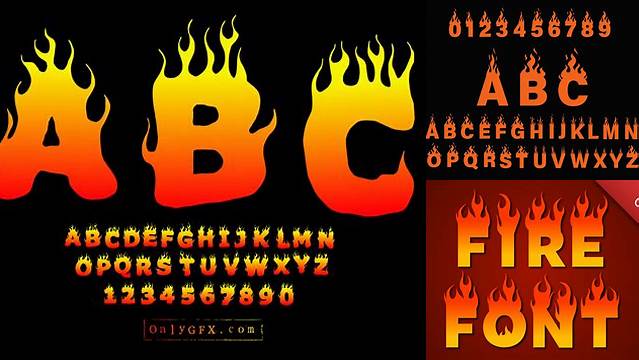
Free Alphabet Fire Font Download: Ignite Your Designs
Hey guys! Ever wanted to add a blazing touch to your designs? Imagine text that looks like it's literally on fire – that's the magic of alphabet fire fonts. In this comprehensive guide, we'll explore the fascinating world of these fiery fonts, where you can find them for free download, and how to use them to make your projects stand out. From scorching logos to sizzling social media graphics, alphabet fire fonts can add a dramatic and unforgettable flair. Fire fonts are more than just visually striking; they evoke a sense of power, energy, and passion. Using these fonts can instantly grab attention and make your message unforgettable. Whether you're designing a poster for a rock concert, a logo for a gaming clan, or just want to spice up your personal projects, fire fonts offer a unique way to express creativity and make a statement. But where do you even begin to find these fiery gems? The internet is vast, and sifting through countless websites can be overwhelming. Fear not! We've scoured the web to bring you a curated list of resources where you can download alphabet fire fonts for free. We'll also guide you on how to choose the right font for your project, considering factors like readability, style, and overall impact. So, buckle up and get ready to ignite your designs with the perfect alphabet fire font. Let's dive in and explore the hottest typography trends that will set your projects ablaze.
Why Choose an Alphabet Fire Font?
So, why should you even consider using an alphabet fire font? What's the big deal, right? Well, let me tell you, these fonts are absolute game-changers when it comes to grabbing attention and making a bold statement. Alphabet fire fonts are not just about looking cool; they're about conveying a specific mood and message. The imagery of fire is universally associated with passion, energy, and intensity. By incorporating a fire font into your design, you're instantly tapping into these emotions and creating a visceral connection with your audience. Think about it – fire is dramatic, it's captivating, and it demands attention. This makes fire fonts perfect for projects where you want to make a lasting impression. For example, if you're designing a logo for a high-energy sports team or a brand that embodies innovation and excitement, a fire font can be an excellent choice. Similarly, if you're creating promotional materials for a music event or a product launch, a fire font can help you generate buzz and excitement. The versatility of alphabet fire fonts also makes them a valuable asset for a wide range of design projects. Whether you're working on a digital banner, a print advertisement, or even a video title sequence, a fire font can add a dynamic and eye-catching element. The key is to use them strategically and in a way that complements your overall design aesthetic. In addition to their visual appeal, alphabet fire fonts can also add a unique personality to your work. They can help you stand out from the crowd and create a distinct brand identity. In a world where visual content is king, using a fire font can be a powerful way to make your message heard and remembered. So, if you're looking for a font that's both stylish and impactful, an alphabet fire font might be just what you need to set your designs on fire.
Where to Find Free Alphabet Fire Fonts
Alright, guys, let's get to the good stuff – where can you actually find these awesome alphabet fire fonts without breaking the bank? The internet is a treasure trove of free resources, but it can also be a bit of a maze. Don't worry, I've got your back! I've scoured the web and compiled a list of some of the best places to download alphabet fire fonts for free. First up, we have websites like DaFont and FontSpace. These are like the granddaddies of free font websites, and they have a massive selection of fonts, including some seriously cool fire fonts. Just type "fire font" into the search bar, and you'll be presented with a plethora of options. You can even filter your search by license type to make sure you're only downloading fonts that are free for commercial use. Another great resource is Creative Fabrica. While they do offer premium fonts, they also have a section for freebies that's updated regularly. Keep an eye out, and you might just snag a fantastic fire font without spending a dime. Don't forget to check out MyFonts and Fonts.com as well. Although they're primarily known for their premium fonts, they often have free font collections or promotions where you can download high-quality fonts for free. It's always worth a look! When downloading fonts from these websites, it's crucial to pay attention to the license agreement. Some fonts are free for personal use only, while others can be used for commercial projects. Make sure you understand the terms before you start using the font in your designs. Another handy tip is to use font preview tools. Most of these websites offer a way to preview the font before you download it, so you can see how it will look with your text. This can save you a lot of time and effort in the long run. So, there you have it – a few excellent resources for finding free alphabet fire fonts. Get out there and start exploring! With a little bit of searching, you're sure to find the perfect font to ignite your creativity.
Top Alphabet Fire Fonts to Download
Okay, so now you know where to find these fiery fonts, but with so many options out there, how do you choose the right one? Let's dive into some top alphabet fire fonts that you can download today and start using in your projects. One popular choice is "Hot Lava", a bold and dramatic font that looks like it's literally melting off the page. This font is perfect for headlines, posters, and anything that needs a serious dose of fiery energy. If you're looking for something a bit more stylized, check out "Inferno". This font features sharp, jagged edges that mimic the look of flames, making it ideal for logos, gaming graphics, and anything with a dark and edgy vibe. For a more classic fire font look, "Blaze" is an excellent option. This font has a clean and legible design with subtle flame-like details, making it versatile enough for a wide range of projects. If you're working on a project with a vintage or retro feel, "Ember" might be the perfect choice. This font has a slightly distressed texture and a classic sans-serif design, giving it a timeless and fiery look. Another standout font is "Magma", which features thick, bold strokes and a molten appearance. This font is sure to make a statement and is perfect for headlines, titles, and anything that needs to grab attention. When choosing a fire font, it's important to consider the overall style and tone of your project. Do you want something bold and dramatic, or something more subtle and stylized? Think about the message you're trying to convey and choose a font that aligns with that message. It's also a good idea to experiment with different fonts and see how they look in your designs. Try using different font sizes, colors, and effects to create the perfect fiery look. With a little bit of experimentation, you're sure to find the perfect alphabet fire font to set your designs ablaze.
How to Use Alphabet Fire Fonts in Your Designs
Alright, you've got your hands on some awesome alphabet fire fonts – now what? How do you actually use them in your designs to create that wow factor? Let's talk about some tips and tricks for using these fonts effectively. First and foremost, remember the golden rule of typography: less is more. Fire fonts are inherently dramatic and eye-catching, so you don't want to overdo it. Using a fire font for every single element in your design can quickly become overwhelming and make your message less impactful. Instead, use fire fonts strategically for key elements like headlines, titles, and logos. Pair them with simpler, more legible fonts for body text and other supporting elements. This will create a visual hierarchy and ensure that your message is clear and easy to read. Another important consideration is color. Fire fonts typically look best when paired with colors that complement the imagery of fire, such as reds, oranges, yellows, and blacks. Experiment with different color combinations to see what works best for your design. You can also use gradients and other effects to enhance the fiery look of the font. For example, adding a subtle glow or shadow can make the font appear as if it's actually emitting light. When using fire fonts in digital designs, consider the loading time and file size. Some fire fonts can be quite complex, which can slow down your website or app. Optimize your fonts for web use to ensure a smooth user experience. In print designs, make sure your fire font is legible at the intended size. Some fonts may look great on a computer screen but become difficult to read when printed. Always do a test print to check the legibility of your fonts. Finally, don't be afraid to experiment! Try using different fire fonts in combination with other fonts, colors, and effects to create unique and eye-catching designs. With a little bit of creativity, you can use alphabet fire fonts to add a touch of fiery flair to any project.
Tips for Choosing the Right Fire Font
Choosing the right fire font can feel like a daunting task, especially with so many options available. But fear not, my friends! I'm here to give you some tips for selecting the perfect fiery font for your project. First, consider the overall style and tone of your design. What kind of message are you trying to convey? Are you going for a bold and dramatic look, or something more subtle and stylized? The font you choose should align with the overall aesthetic of your project. If you're designing a logo for a rock band, a bold and aggressive fire font might be perfect. But if you're creating a poster for a more sophisticated event, a more elegant and refined fire font might be a better choice. Another important factor to consider is readability. While fire fonts are visually striking, some can be difficult to read, especially at smaller sizes. Make sure the font you choose is legible enough for your intended use. If you're using a fire font for body text, opt for a font with a clean and simple design. For headlines and titles, you can get away with a more decorative font, but still make sure it's easy to read at a glance. Think about the context in which the font will be used. Will it be used on a website, in print, or in a video? Different media may require different types of fonts. For example, fonts used on websites should be optimized for web use to ensure they load quickly and display correctly. In print, you'll need to consider the resolution and print quality. Don't forget about font pairing. Fire fonts are often best used in combination with other fonts. Choose a secondary font that complements the fire font and provides a visual contrast. A simple sans-serif font often works well as a secondary font for a more decorative fire font. Finally, experiment! Try out different fire fonts and see how they look in your designs. Play around with different sizes, colors, and effects to create the perfect look. The best way to find the right fire font is to simply try out different options and see what works best for your project. With these tips in mind, you'll be well on your way to choosing the perfect alphabet fire font to ignite your creativity and set your designs ablaze!
So, there you have it, guys! A comprehensive guide to the fiery world of alphabet fire fonts. We've explored why these fonts are so impactful, where to find them for free, some top font recommendations, how to use them effectively in your designs, and tips for choosing the right one. Alphabet fire fonts are a powerful tool for any designer looking to add a touch of drama, energy, and excitement to their work. Whether you're designing a logo, a poster, a website, or anything in between, these fonts can help you make a bold statement and grab your audience's attention. Remember, the key to using fire fonts effectively is to use them strategically. Don't overdo it, and always consider the overall style and tone of your project. Pair them with complementary fonts and colors, and don't be afraid to experiment with different effects. With a little bit of creativity, you can use alphabet fire fonts to create designs that are truly unforgettable. So go ahead, ignite your creativity and start experimenting with these fiery fonts today! The possibilities are endless, and the results are sure to be 🔥🔥🔥. Now that you're armed with the knowledge and resources to find and use alphabet fire fonts, it's time to unleash your inner fire and create designs that sizzle. Happy designing, and may your creativity burn bright!